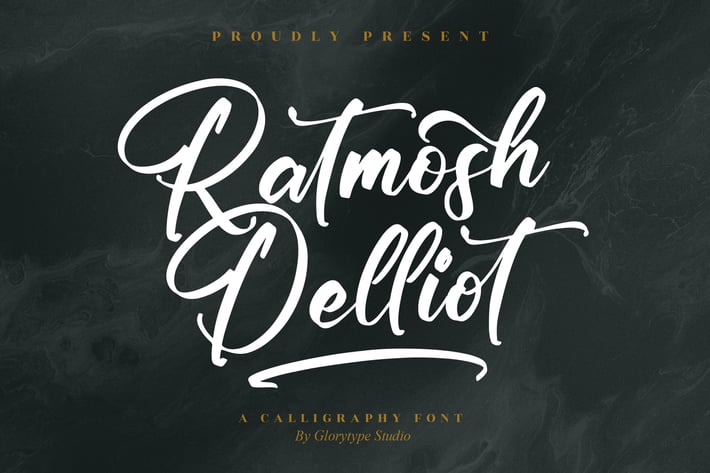
Ratmosh Delliot Calligraphy Font
Ratmosh Delliot Calligraphy Font is an elegant and refined calligraphy font designed to add a touch of sophistication and personality to any project. With its delicate strokes and smooth flow, this font is perfect for creating high-end branding and stylish content.
Elegant calligraphy script style
Smooth, fluid strokes for a luxurious, handwritten look
Ideal for both digital and printed creative projects
Luxury brand logos and signatures
Wedding invitations and premium stationery
High-end business cards and branding materials
Social media posts and quotes with sophistication
Photography branding and watermarks
Elegant creative portfolios and branding
Invitations and event designs
Sophisticated, elegant, and luxurious — Ratmosh Delliot Calligraphy Font brings timeless beauty to every design.*